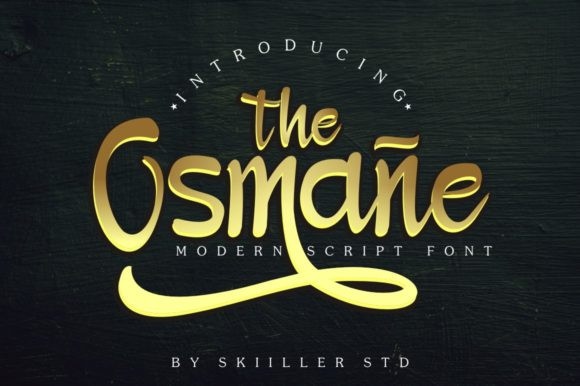
The Osmane Font
The Osmane Font is perfect for luxury Middle Eastern restaurants, cultural heritage exhibitions, Islamic art galleries, traditional craft branding, oriental hospitality marketing, exotic travel campaigns, premium spice packaging, Arabian-themed events, and sophisticated cultural communications.
What makes The Osmane Font exciting is its elegant oriental sophistication combined with timeless cultural heritage that evokes the grandeur of ancient Middle Eastern civilizations and traditional Islamic calligraphy. The font's graceful letterforms and ornamental character details deliver captivating exotic appeal while maintaining exceptional readability, making it the ideal choice for brands seeking to communicate cultural authenticity, refined elegance, and Middle Eastern heritage to discerning audiences.
The Osmane Font family includes multiple weights with decorative Middle Eastern elements, traditional ornamental flourishes, and contextual alternates featuring cultural motifs, providing comprehensive design solutions for creating authentic cultural branding and heritage-focused marketing across diverse cultural applications.
This distinguished typeface embodies the artistic legacy and cultural richness of Middle Eastern civilizations in every meticulously crafted character. The Osmane Font Free Download offers cultural institutions and heritage-focused brands an extraordinary opportunity to develop visual identities that resonate with audiences seeking authentic cultural experiences and traditional craftsmanship. Whether you're creating Middle Eastern restaurant brands, designing cultural exhibition materials, or developing heritage tourism campaigns, this font family delivers the cultural sophistication needed to attract audiences appreciating traditional arts and oriental elegance.
The authentic cultural styling and traditional ornamental details create instant recognition among cultural enthusiasts while communicating heritage authenticity and artistic excellence. Extensive decorative elements support rich storytelling about Middle Eastern traditions and cultural heritage.
The Osmane Font distinguishes itself through its remarkable balance of cultural authenticity and contemporary functionality. This exceptional typeface doesn't just display text—it preserves cultural heritage and creates meaningful connections with traditional Middle Eastern aesthetics, making it invaluable for brands serving markets where cultural appreciation and authentic heritage experiences drive consumer engagement and cultural education.